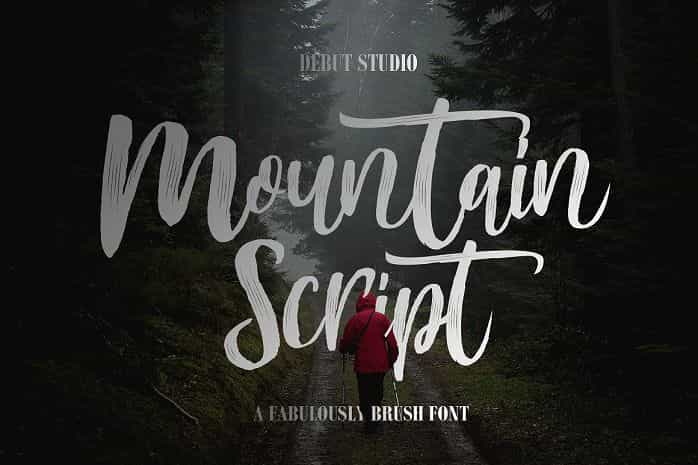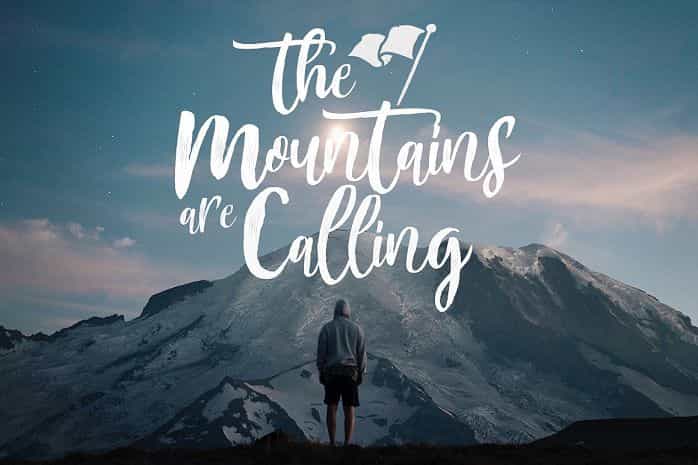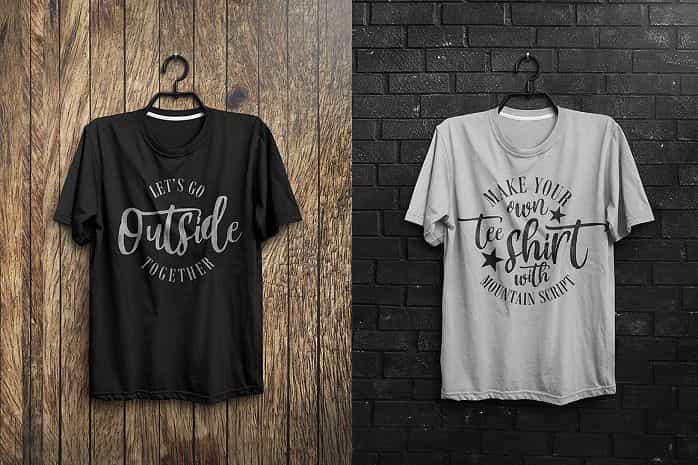
Introducing Mountain Font. Mountain Script – Brush Fonts This font is ideal for the design of logos, t-shirts, headings, magazines or newspapers etc. You can also use it to create quotations, posters and business cards among others.